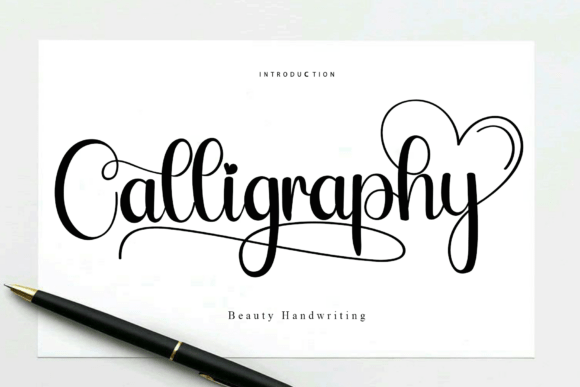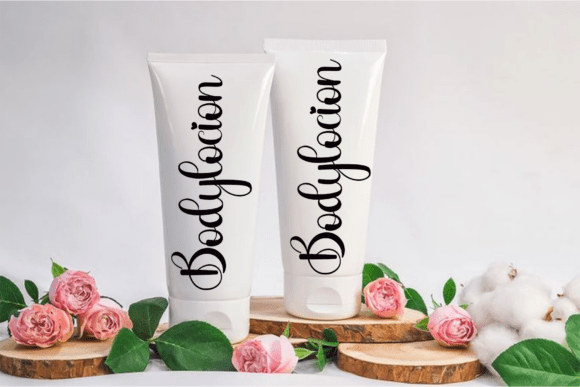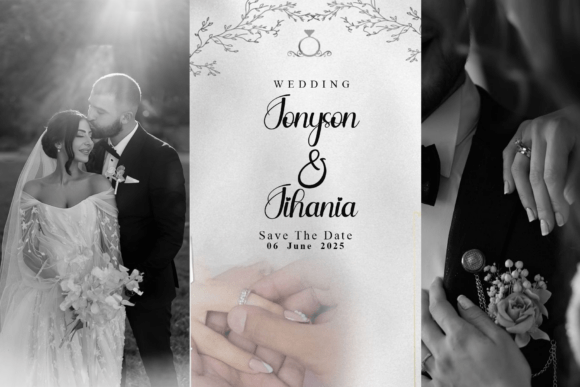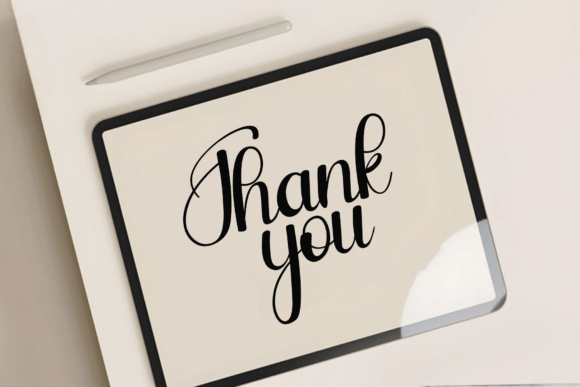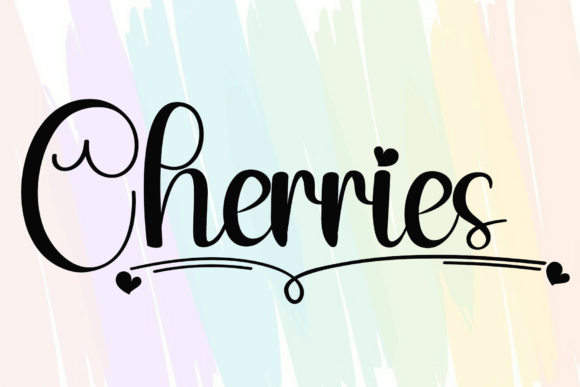
The Sweet Charm of Calligraphy Font: Elevate Your Designs with Elegance and Whimsy
I’ll never forget the time I was working on a wedding invitation design for a client, and I just couldn’t seem to find the perfect font. The project required something elegant, yet playful; something that would capture the joy and romance of the special day. That’s when I stumbled upon the Calligraphy Font, and it instantly became the perfect fit. In this article, I’ll share with you why I’m obsessed with this sweet and cursive handwritten font, and how you can make the most of it in your designs.
- ✅ The Calligraphy Font is incredibly versatile and can be used for a wide range of design projects, from branding and logos to wedding materials and greeting cards.
- ✅ Its gentle, cursive script adds a touch of elegance and whimsy to any design, making it perfect for projects that require a bit of sophistication and charm.
- ✅ The font is highly legible, even at smaller sizes, making it ideal for body text and captions.
A Few Quirks to Keep in Mind 🤔
- ⚠️ While the Calligraphy Font is beautiful on its own, it can be a bit overpowering when paired with other bold or ornate fonts. Balance is key when combining fonts.
- ⚠️ Some of the more intricate glyphs and swashes may not display properly on all devices or platforms, so it’s essential to test your design across different mediums.
A Practical Guide: Using Calligraphy Font in Your Designs
The Story Behind Calligraphy Font: A Designer’s Inspiration
The Calligraphy Font was designed with the intention of capturing the essence of handwritten calligraphy in a digital format. Inspired by traditional calligraphy techniques, the font’s creator aimed to produce a font that was both elegant and approachable. The result is a font that feels both luxurious and friendly, making it perfect for a wide range of design applications.
Q: What makes Calligraphy Font suitable for wedding designs?
A: The Calligraphy Font’s elegant, cursive script and whimsical touches make it perfect for wedding invitations, programs, and other wedding-related materials.
Q: Can I use Calligraphy Font for body text?
A: While Calligraphy Font is beautiful for headings and titles, it’s also surprisingly legible for body text. However, it’s essential to consider the overall design and readability when using it for longer blocks of text.
Q: Does Calligraphy Font support OpenType features?
A: Yes, Calligraphy Font supports OpenType features, including ligatures, stylistic alternates, and swashes. These features can add more personality and variety to your text.